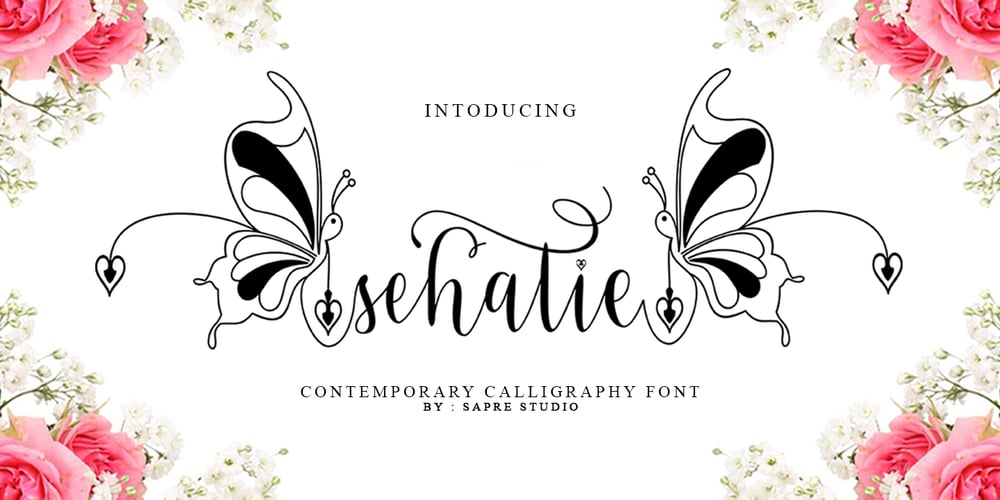
Sehatie Font Family was designed by Safri Fajar and published by Sapre Studio. Sehatie contains 4 styles and family package options. Sehatie Script is a contemporary calligraphy font that dances up and down the baseline. which comes with a wonderful alternative. It has a casual and elegant touch. This font is PUA encoded which means you can access all the glyphs and sweeps easily! Works perfectly for logos, fashion, stationery, printing press, magazines, menus, books, invitations, wedding/greeting cards, packaging, labels, clothing, marketing, etc.Sehatie Script features 580+ glyphs and 350 alternate characters. includes initial and terminal letters, alternatives, ligatures and multiple language support.Files include: Sehatie Script One (otf) Sehatie Script Two (otf) Sehatie Script Three (otf) Sehatie Script Four (otf)To enable the OpenType Stylistic alternative, you need a program that supports OpenType features such as Adobe Illustrator CS, Adobe Indesign & CorelDraw X6-X7, Microsoft Word 2010 or a later version. and there are additional ways to access alternatives/swashes, using the Character Map (Windows), Nexus Font (Windows), Font Book (Mac) or a software program such as PopChar (for Windows and Mac).How to Access Alternate Characters in Photoshop CC. https://www.youtube.com/watch?v=xFlMwARHusYHow to access all alternative characters using Adobe Illustrator: https://www.youtube.com/watch?v=XzwjMkbB-wQHow to access all alternative characters, using the Windows Character Map with Photoshop: https://www.youtube.com/watch?v=Go9vacoYmBwHow to use the font style set in Microsoft Word 2010 or later versions: https://youtu.be/x1A_ilsBsGsHow to Use OpenType Fonts in Silhouette Studio or Cricut Design Space: http://cuttingforbusiness.com/2016/01/28/how-to-use-opentype-fonts-in-silhouette-studio-or-cricut-design-space/